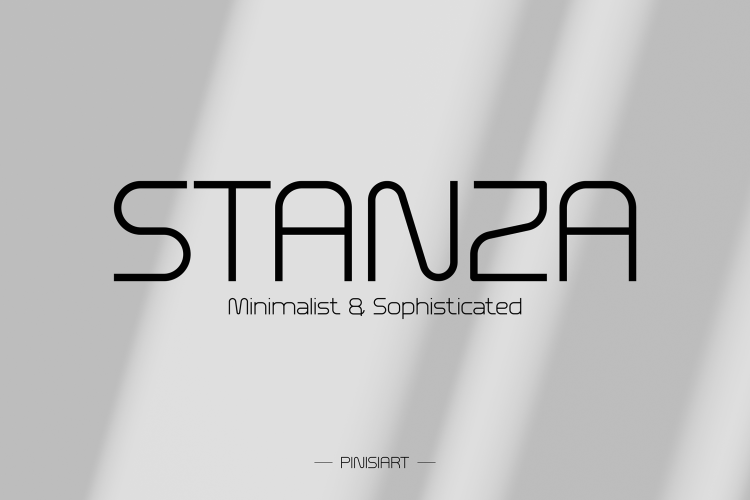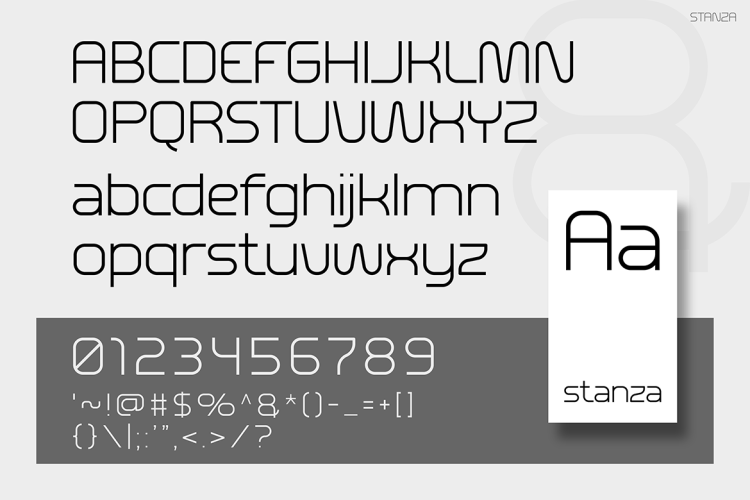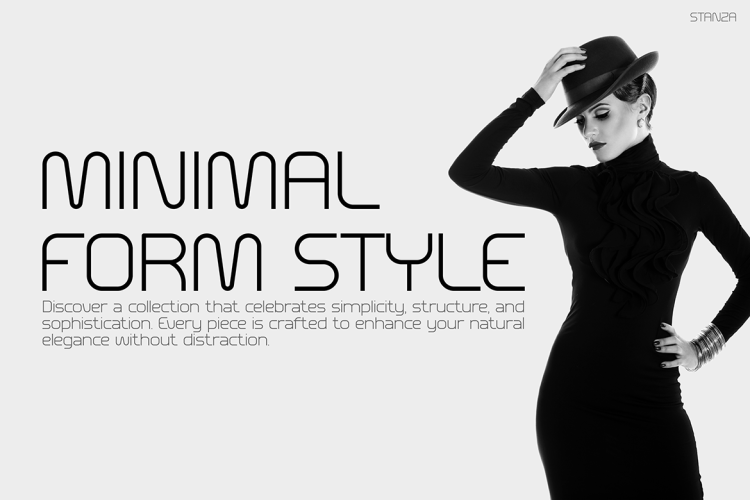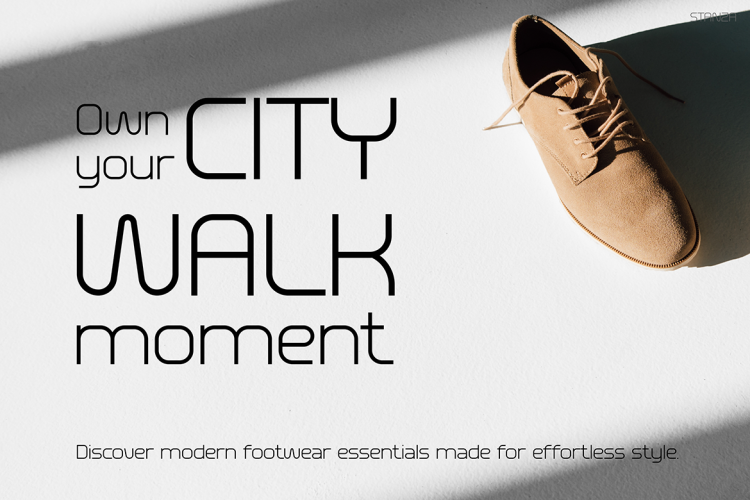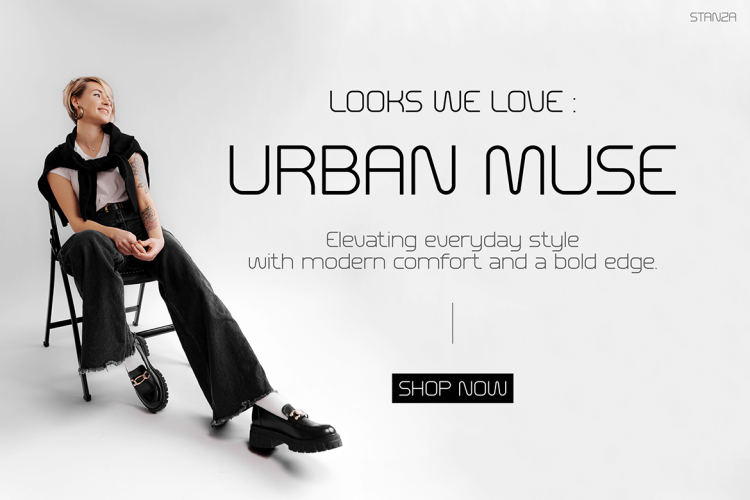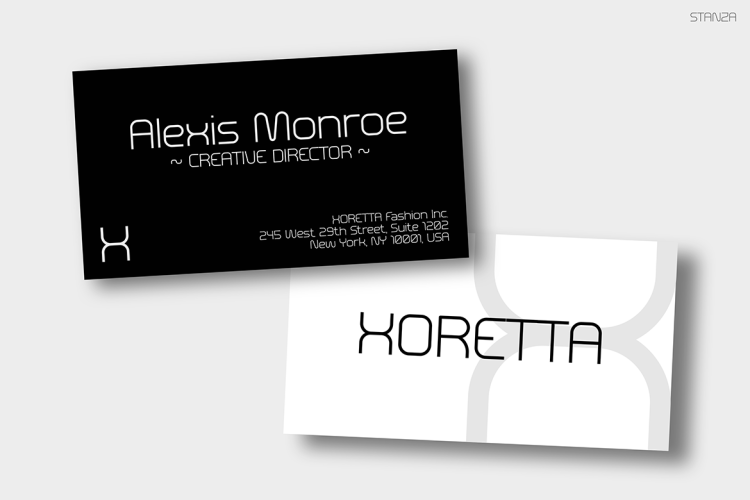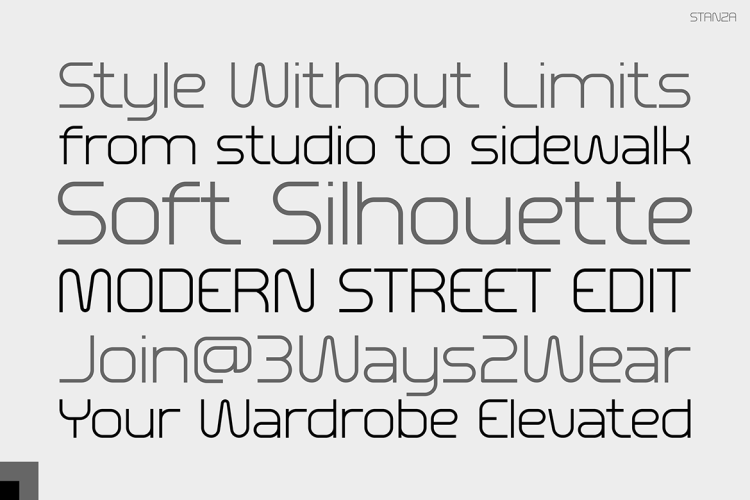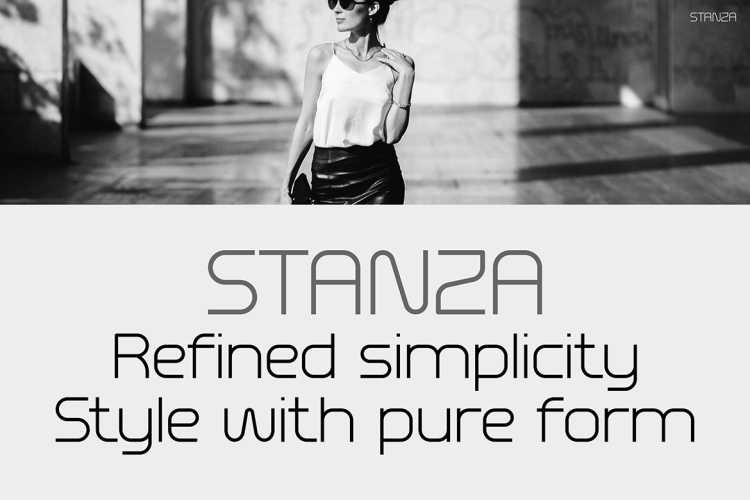
Instagram Font Stanza
Instagram Font Stanza is a modern and minimal typeface that blends elegance with contemporary sophistication. Moreover, its clean geometric curves, balanced proportions, and subtle futuristic touch make it stand out as both versatile and timeless. With thin, precise strokes and rounded edges, it creates a refined visual identity that is both stylish and professional. In addition, its seamless adaptability allows it to shift from minimal elegance to bold, attention-grabbing headlines with ease. Therefore, it becomes an ideal choice for high-end fashion branding, editorial layouts, and sleek digital content. As a result, whether used on a crisp magazine cover, a luxury brand ad, or a stylish Instagram feed, Stanza consistently delivers clarity, style, and personality in every letter.
Description & Suitable For
Stanza is designed for creators who value modern aesthetics without sacrificing readability. Furthermore, its uppercase characters convey a sense of authority, while the lowercase letters introduce a softer and more approachable tone. In addition, the fontโs precise construction ensures harmony in both large display sizes and smaller text applications. Consequently, it works beautifully across all design platforms, from brand logos to social media graphics.
Perfect for:
Fashion Brands & Boutiques โ Not only does it enhance your visual identity, but it also gives your designs a sleek, runway-inspired feel.
Lifestyle Influencers & Instagram Creators โ Maintain a cohesive and modern feed while expressing your brandโs unique personality.
Creative Agencies & Marketing Teams โ Design campaigns that are elegant, memorable, and aligned with current style trends.
Minimalist Product Labels & Packaging โ Pair the font with high-quality imagery for maximum premium appeal.
Editorial & Publishing Projects โ Bring sophistication, clarity, and visual rhythm to magazines, blogs, and lookbooks.
With Instagram Font Stanza, youโre not just selecting a font โ youโre choosing a design tool that speaks volumes without shouting. Furthermore, it empowers storytellers, designers, and brands to communicate refinement, creativity, and modernity in every piece of work. As a result, if your project demands a typeface that is as stylish as it is functional, Stanza will exceed your expectations. Therefore, bring your brand to life with a typeface that blends minimalism, elegance, and versatility. Make Instagram Font Stanza the signature detail your designs have been waiting for.